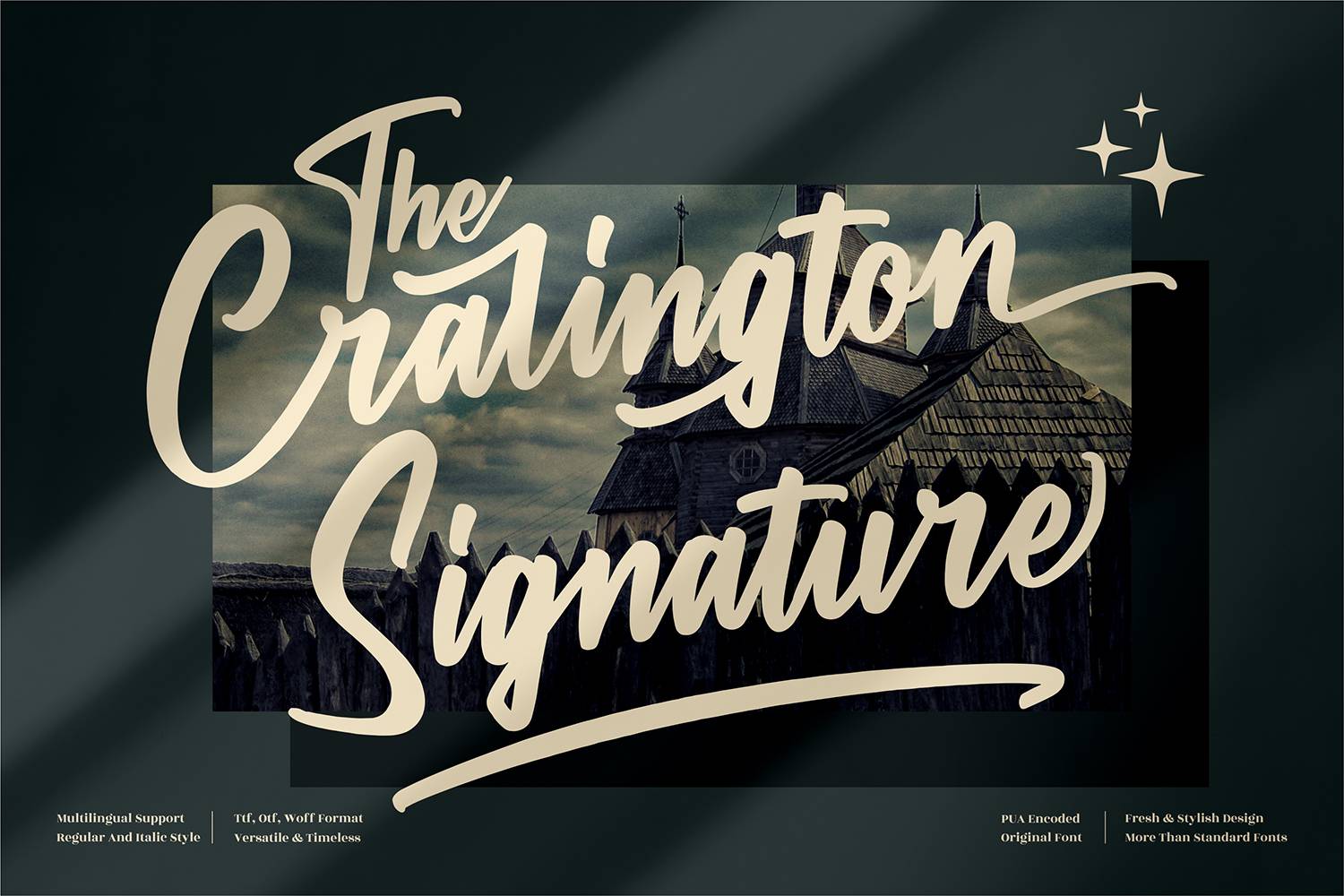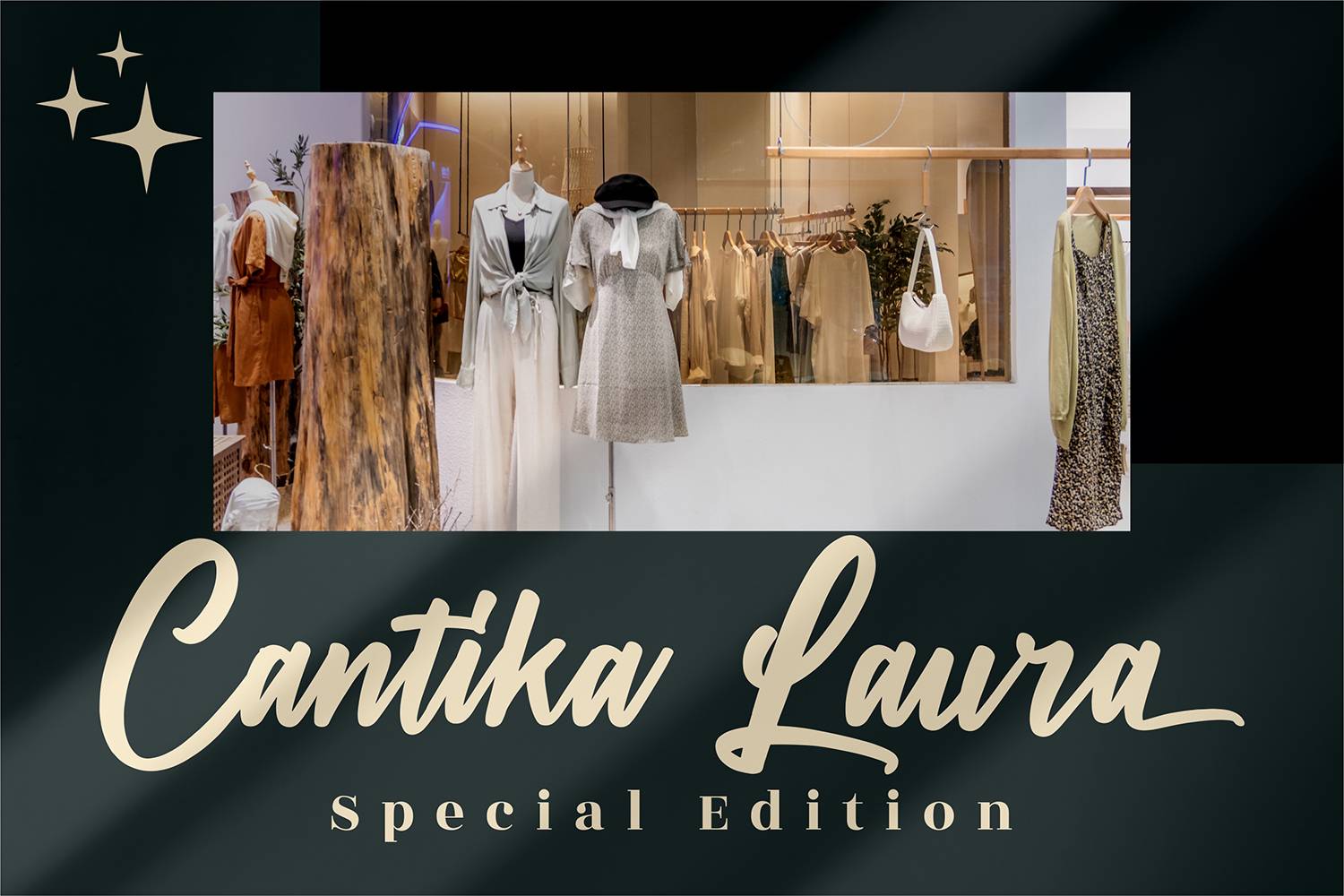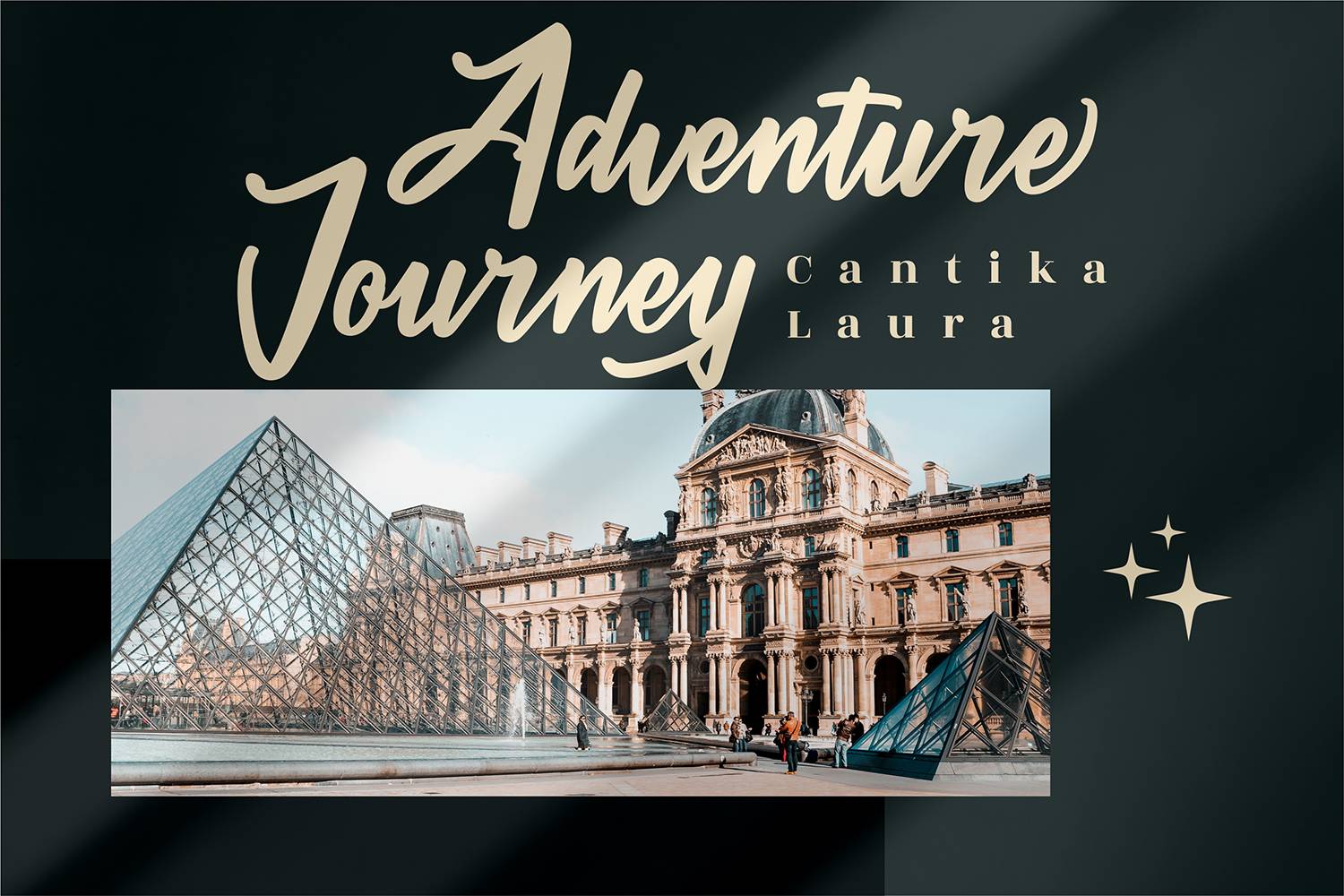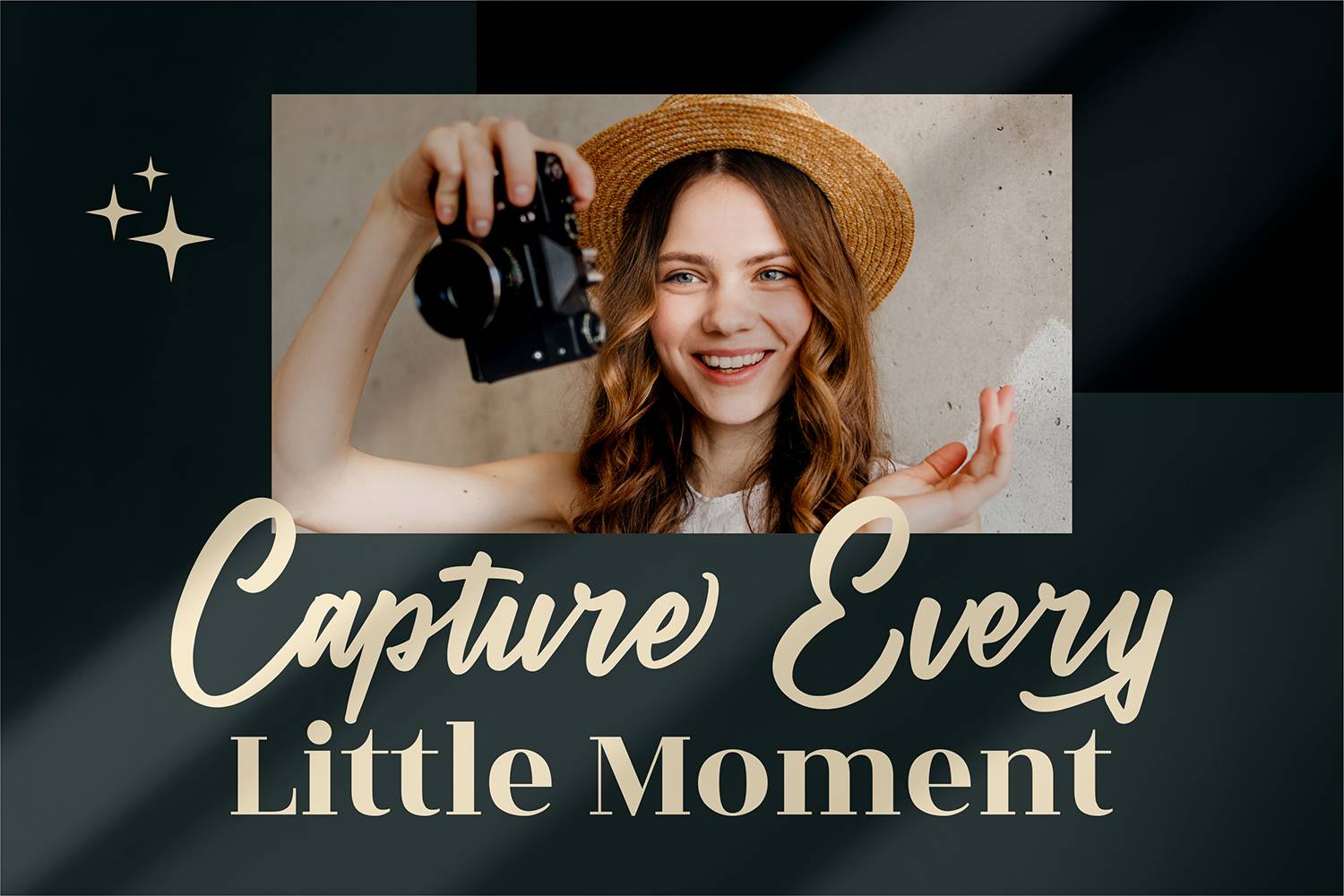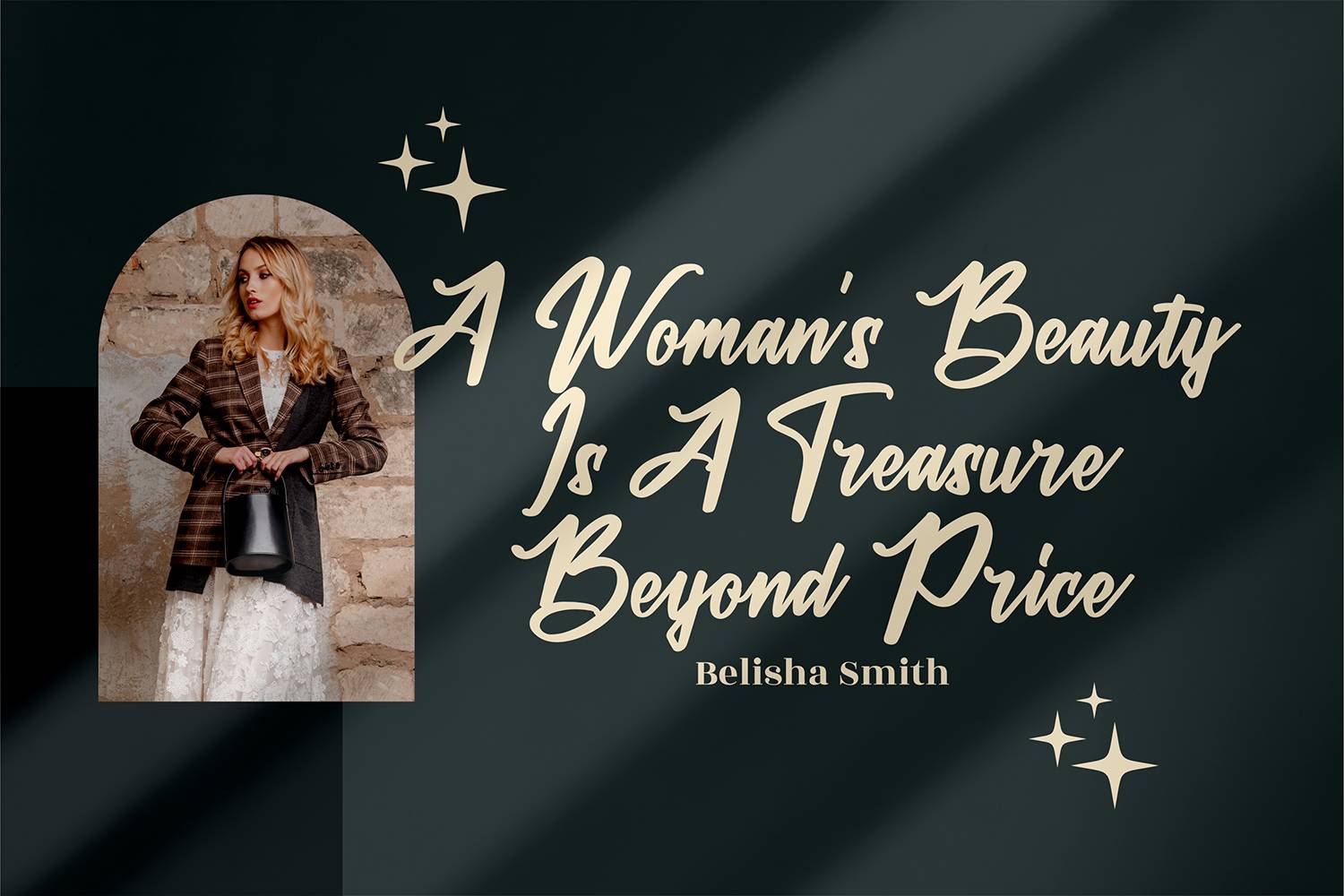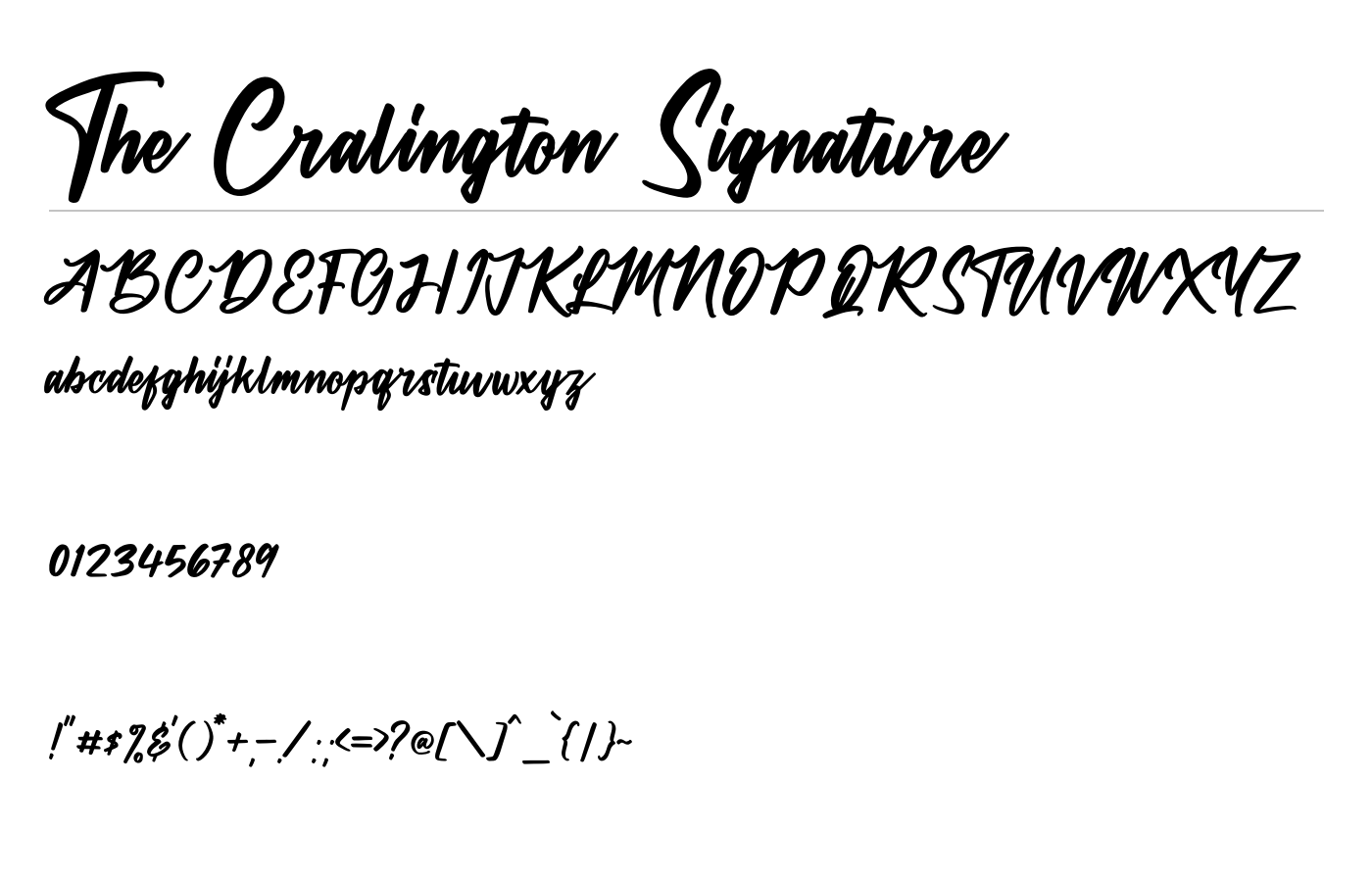
The Cralington Signature Font is a stylish script typeface that exudes a smooth, handwritten feel with dynamic strokes and elegant flow. Its moderate weight and slightly condensed letterforms create a personal, inviting vibe, making it perfect for branding, invitations, and creative projects that seek a touch of warmth and sophistication. This font shines in logos, headlines, and anywhere a signature-style, modern yet classic look is desired.
The Cralington Signature Font
About The Cralington Signature Font
| Font family | The Cralington Signature Font |